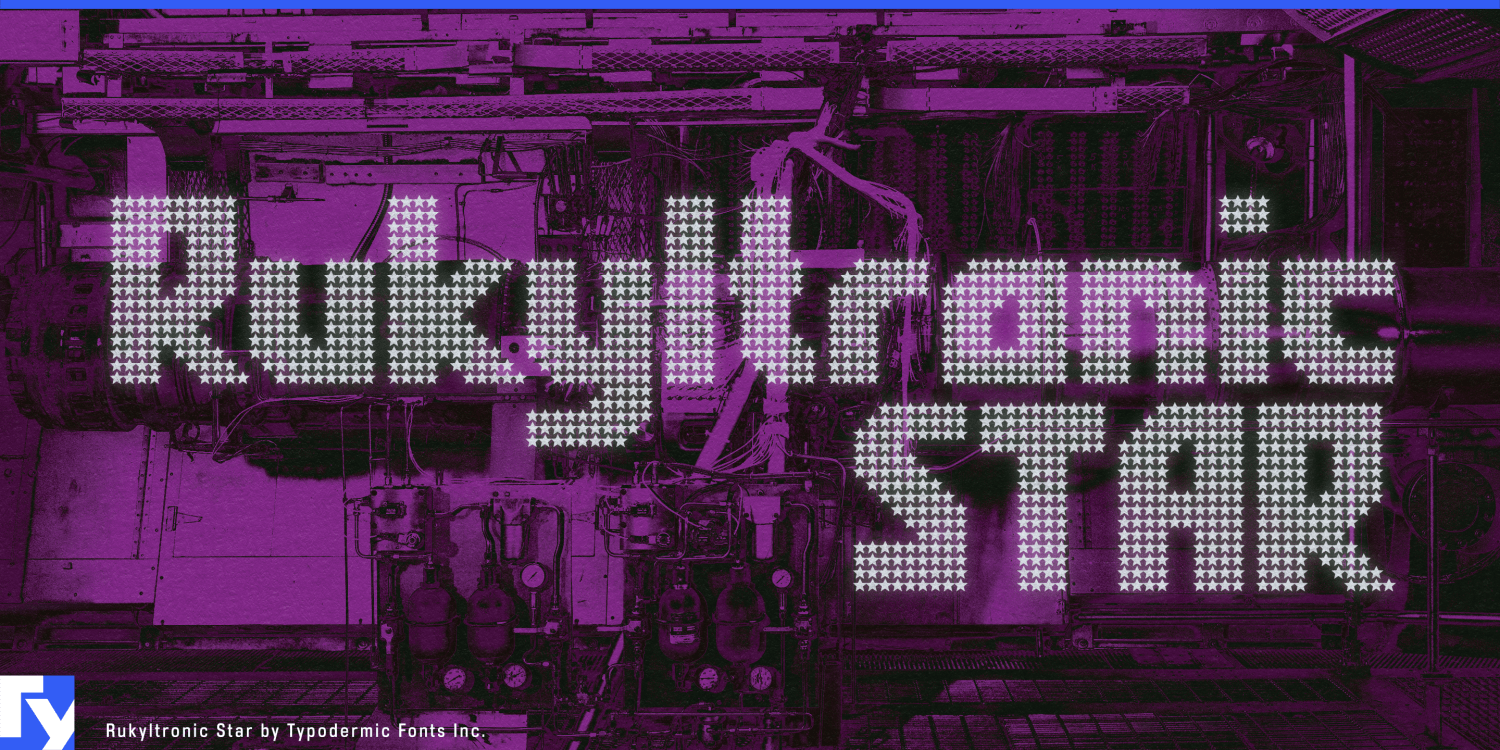
Rukyltronic Star
Rukyltronic Star replaces every square cell with a small five-pointed star while preserving the family’s compact, pixel-native silhouettes. The repeated emblems nearly touch across the strokes, combining the discipline of a bitmap grid with a bright, celebratory surface. It remains recognizably Rukyltronic but shifts the mood from technical display to spectacle, achievement, and headline entertainment.
Use Rukyltronic Star for playoff campaigns, championship graphics, player introductions, awards screens, festival identities, space-themed games, and special-edition team merchandise. It works best in a few large words where each star stays recognizable. Pair it with Regular or Grid for scores, dates, and supporting levels, allowing Star to mark the moments that deserve the strongest celebratory treatment.